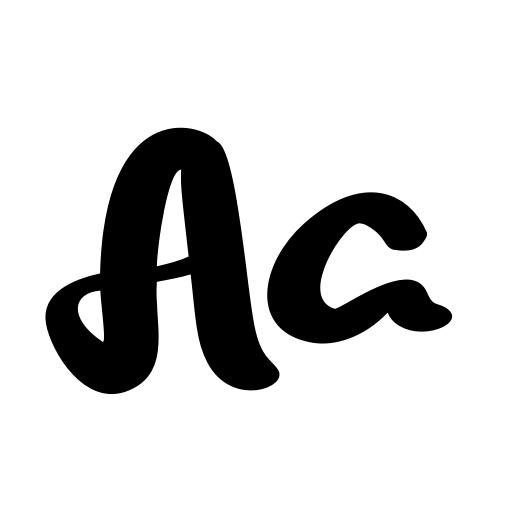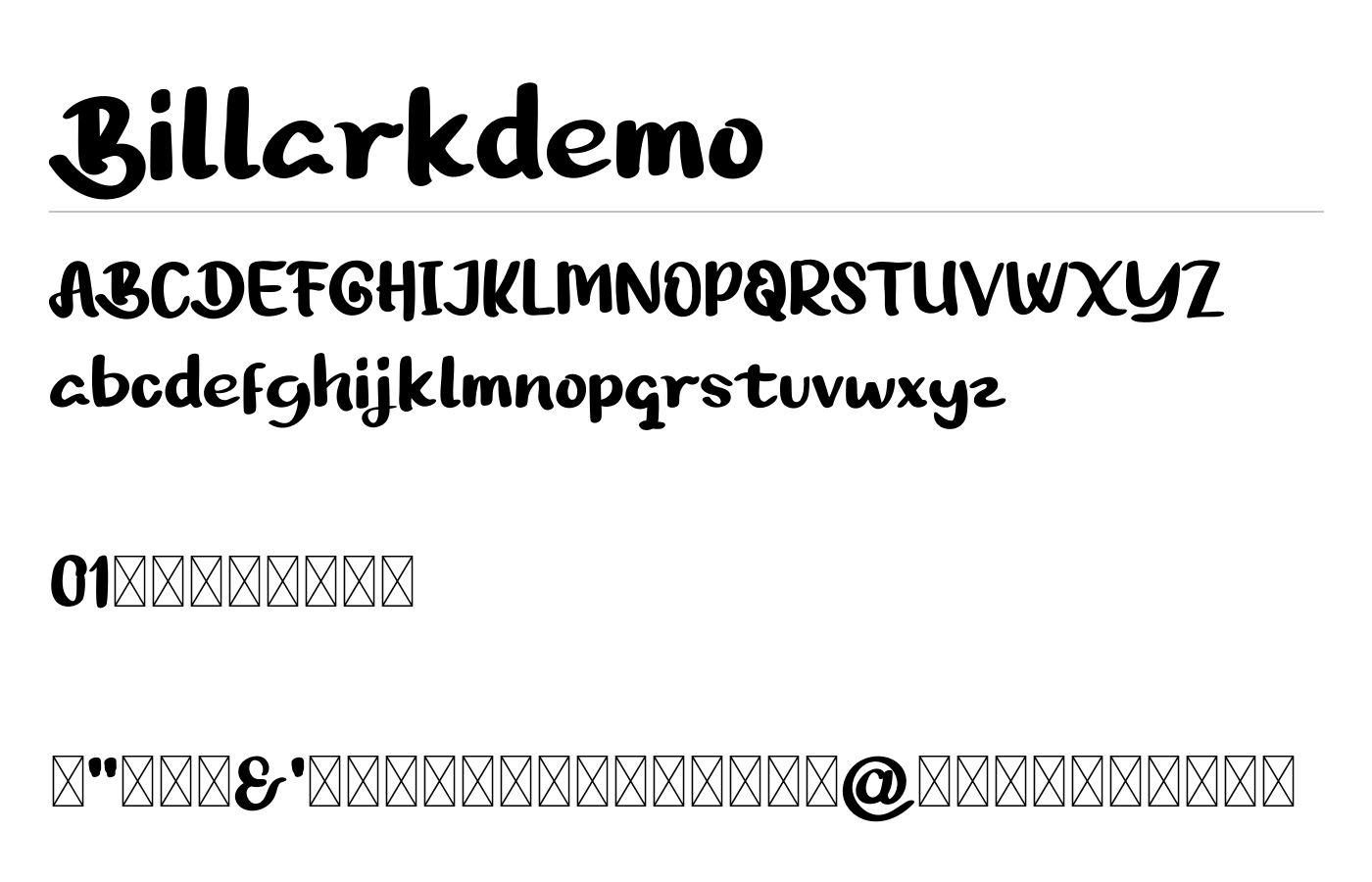
Billarkdemo is a playful, bold script font with a friendly, hand-drawn feel that stands out with its thick, rounded strokes and whimsical letterforms. Its casual yet lively style makes it great for creative projects, children’s books, or branding that wants to convey approachability and fun. This font shines in headlines, logos, and any design needing a warm, inviting personality.
Billarkdemo Font